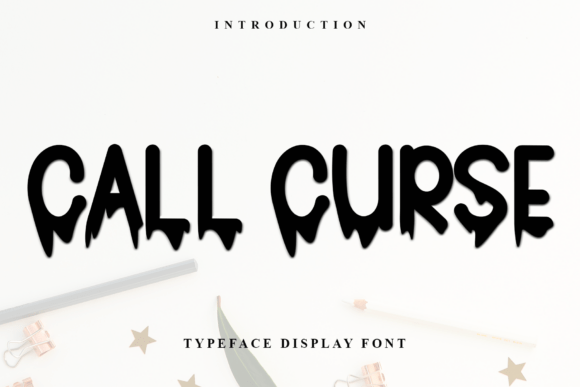
The Call Curse Font: A Designer’s New Best Friend
I still remember the frustration of working on a design project, hours spent searching for the perfect font, only to end up with something that just didn’t feel right. My client wanted a unique, eye-catching font that would make their brand stand out, but I was struggling to find something that fit the bill. That’s when I stumbled upon the Call Curse font, and let me tell you, it was love at first sight! 💕
So, what makes the Call Curse font so special? Here are a few things I love about it:
- ✨ Unique and eye-catching: The Call Curse font has a distinctive touch that’s hard to find in other fonts. Its soft, flowing strokes make it perfect for designs that need a bit of personality.
- ✅ Versatile: This font is incredibly versatile, making it suitable for a wide range of design projects, from crafts to creative works.
- 🤔 Limited character set: While the Call Curse font has a wide range of characters, it may not have every special character or glyph you need. Be sure to check the font’s capabilities before committing to a project.
- ⚠️ May require adjustment for certain designs: Depending on your design, you may need to adjust the font’s size, spacing, or other settings to get the look just right.
The Story Behind Call Curse
The Call Curse font was designed with the intention of creating a unique, eye-catching font that would add a touch of personality to any design. The designer wanted to create a font that was both beautiful and versatile, making it suitable for a wide range of design projects. While the true story behind the font’s creation may be unknown, it’s clear that the Call Curse font has been crafted with love and care.
| What is the Call Curse font? | The Call Curse font is a beautiful, eye-catching font designed with a soft, unique touch. |